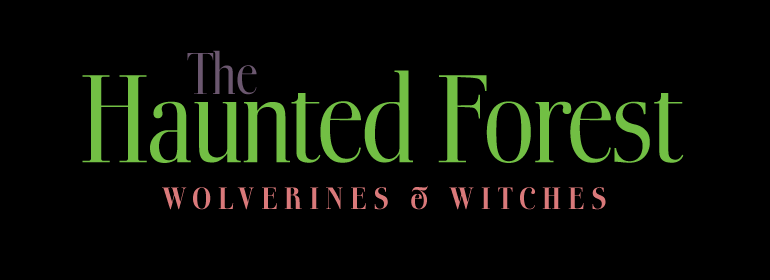
Boberia™
Designed by Bo Berndal, the Boberia typeface's historical roots lie in the neoclassicism popular at the turn of the 20th century. Boberia's slender letters, with their large x-heights and marked stroke contrast, give it an elegant character in print. Its nostalgic, flowing forms are typical of Art Deco design, and allow users a number of possibilities for use. The Boberia family includes regular, italic, and bold styles.